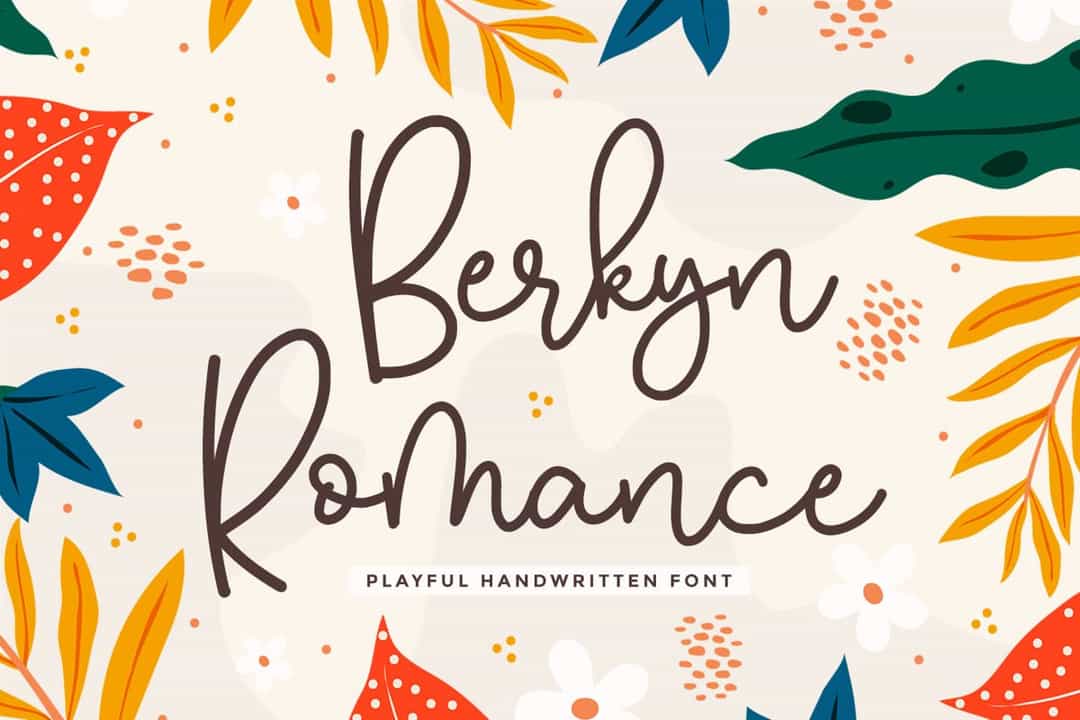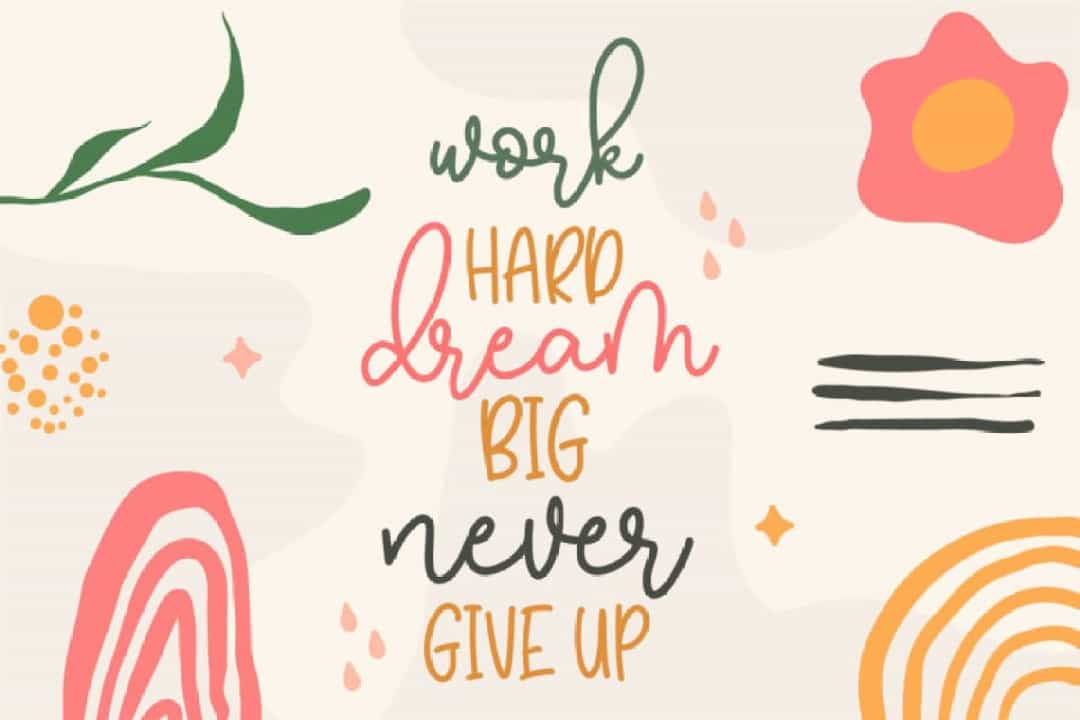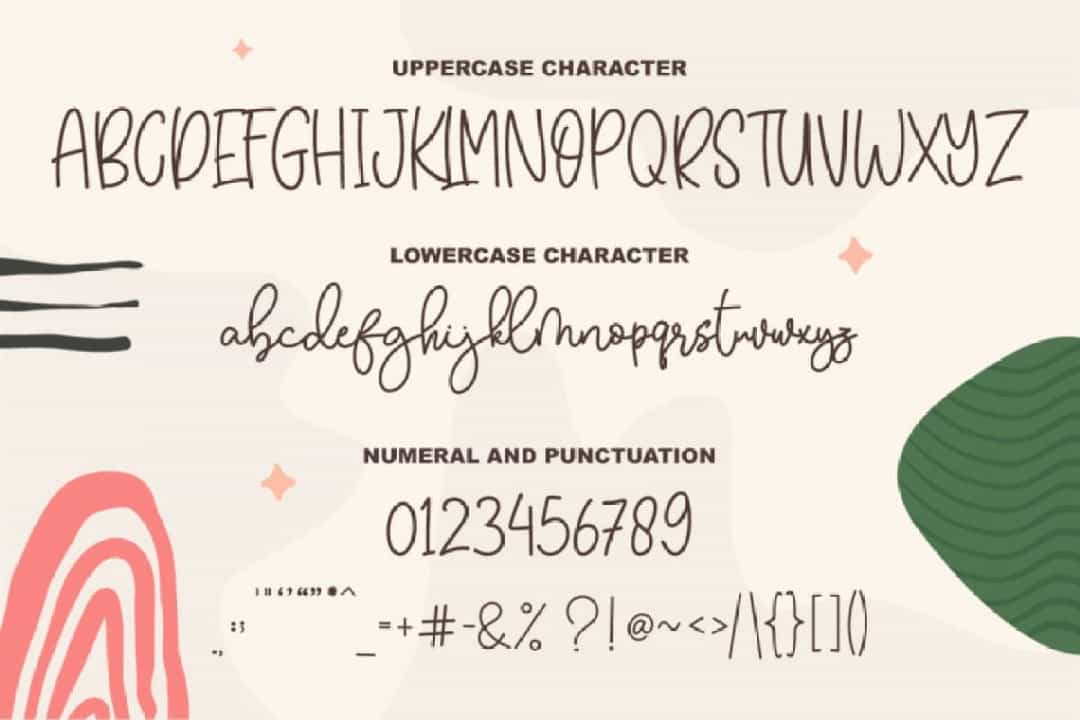
Berkyn Romance is a beautiful handwritten font and has a modern look to it that gives the design an old touch will surely enhance the look of the upcoming project. This is to emulate the classy appearance of the font; it is advised to apply Berkyn Romance for the creation of wedding invitations, stationery designing, creative social media platforms, or greeting cards designs.